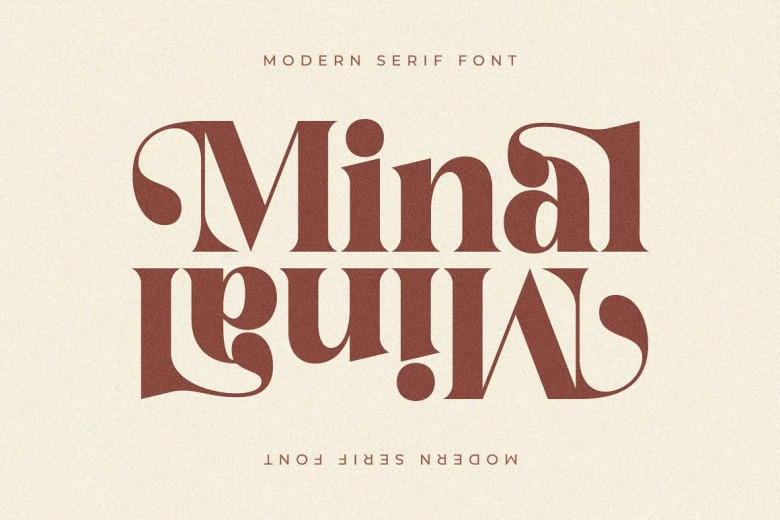
Minal Font
Minal stylish and fashionable serif font. With its unique characters and modern vibe, this is the perfect going typeface for a variety of chic designs where an extremely fashionable look is needed. This beautiful font is perfect for a high-class & luxury logo, book or movie title design, fashion brand, magazine, clothes, lettering and quotes.
Minal Serif Font